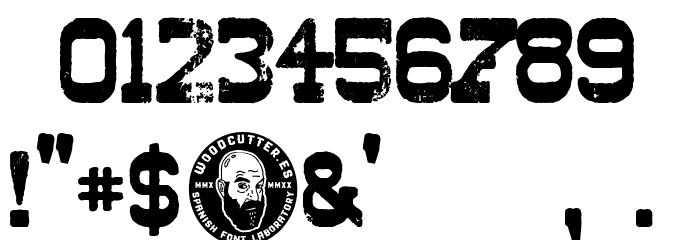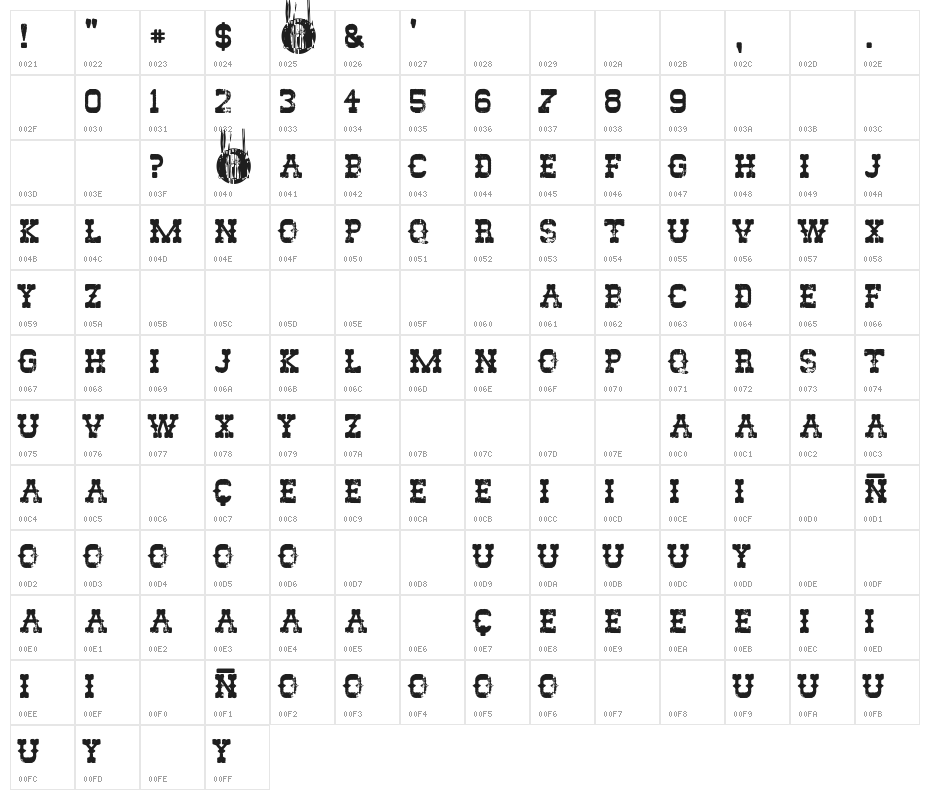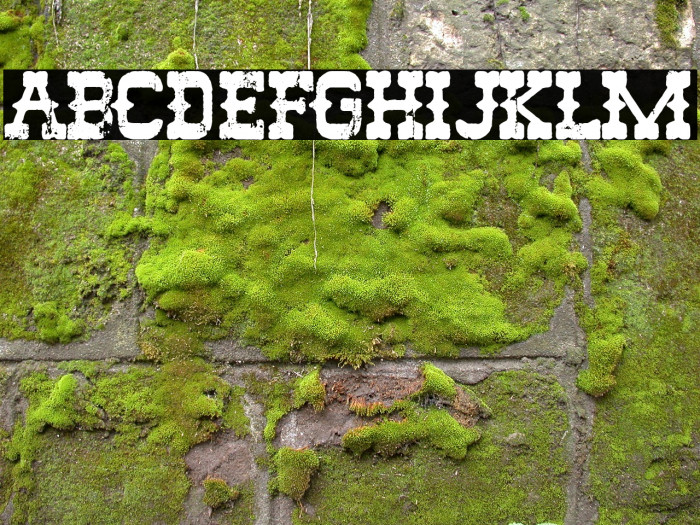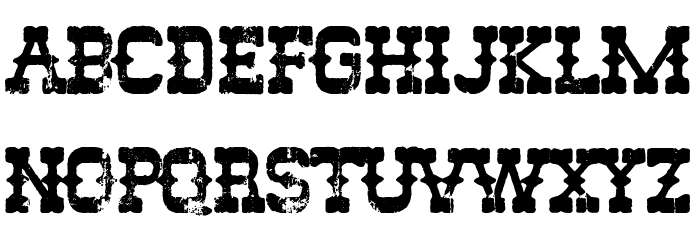
The Rio Lobo Font
The Rio Lobo Description
This font features a rugged, distressed style with a bold and impactful presence. Each character appears weathered, giving it a vintage, worn-out look that adds character and depth. The uppercase and lowercase letters maintain a consistent design, with rough edges and a textured appearance that suggests a hand-crafted or stamped effect. The numerals and special characters follow the same aesthetic, ensuring a cohesive look across all text. This font's unique style makes it ideal for projects that require a strong, rustic, or industrial feel.